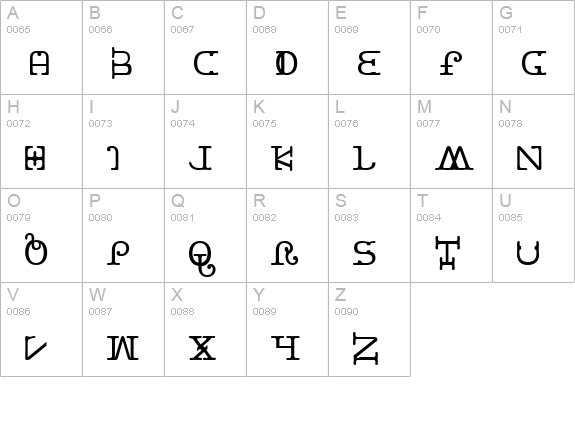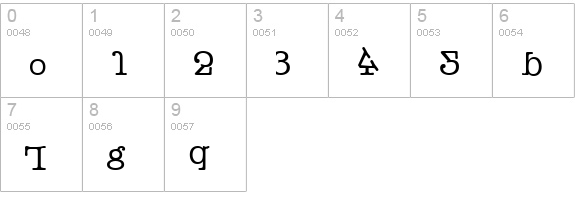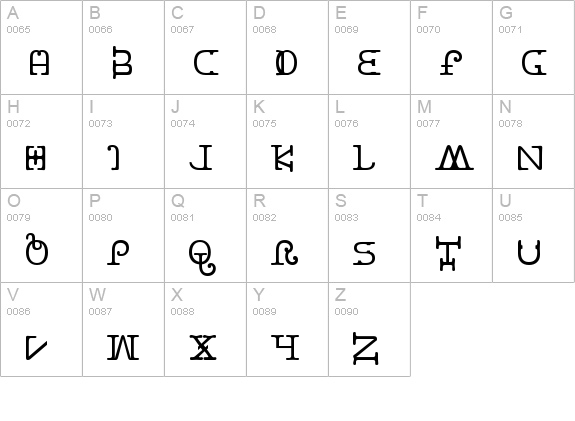
Buttercrumb Font Details
Introducing Buttercrumb font, a versatile and charming typeface that adds a touch of whimsy to any design project. With its delicate lines and playful curves, Buttercrumb exudes a sense of warmth and friendliness that is perfect for a wide range of applications. Whether you're creating invitations, branding materials, or social media graphics, this font is sure to make your text stand out. The best part? Buttercrumb is available for free download at FontsMarket.com. That's right, you can easily access this delightful font without any cost, making it a valuable addition to your font collection. Don't miss out on the opportunity to enhance your designs with the unique charm of Buttercrumb font. Download it today and let your creativity soar!